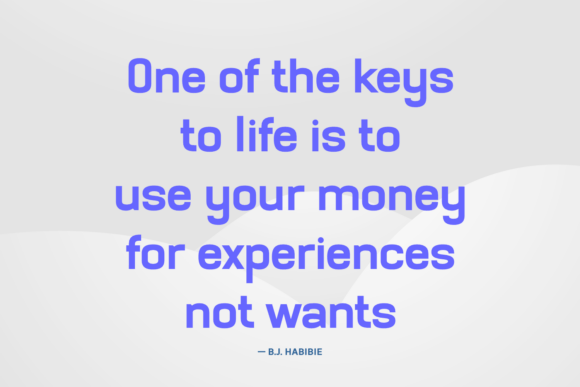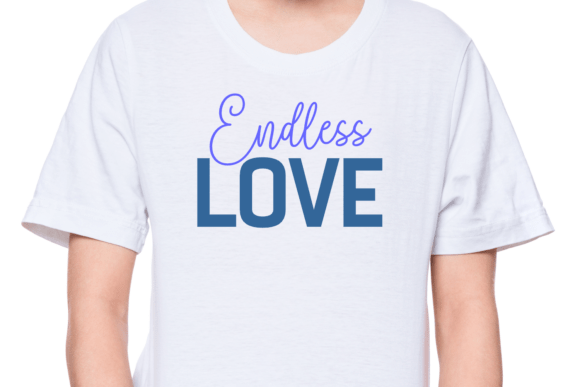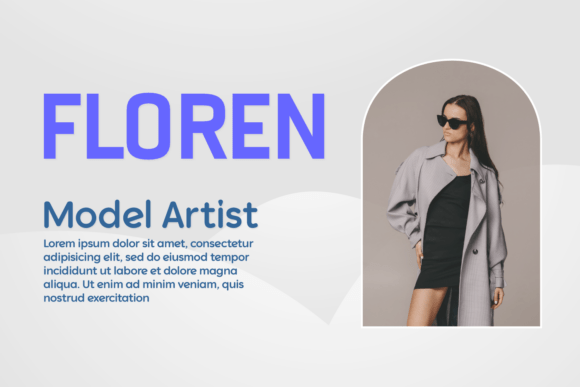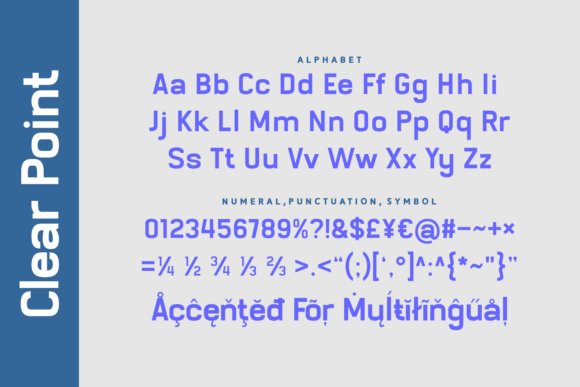
Introducing Clear Point Font: The Ultimate Choice for Modern Designers
In the world of typography, a font can make or break a design project. With the numerous options available, finding the perfect font that balances readability, aesthetics, and versatility can be a daunting task. However, if you’re looking for a bold and modern sans serif font that ticks all the right boxes, look no further than Clear Point Font.
What is Clear Point Font?
Clear Point is a thoughtfully designed sans serif font that embodies precision, clarity, and a touch of modernity. Its strong geometric structure and clean letterforms make it an excellent choice for creating impactful headlines, branding materials, posters, and digital media. Whether you’re a professional designer or a crafty DIY enthusiast, Clear Point Font is sure to elevate your design projects to the next level.
Key Features of Clear Point Font
- Bold and Modern Design: Clear Point Font boasts a bold and modern sans serif design that exudes confidence and sophistication.
- Geometric Structure: The font’s strong geometric structure provides a sense of stability and precision, making it perfect for designs that require a professional edge.
- Clean Letterforms: The clean and minimalist letterforms of Clear Point Font ensure that your message is conveyed with clarity and precision.
- Versatility: Clear Point Font balances readability with a contemporary edge, making it suitable for a wide range of design projects, from professional branding to creative posters and digital media.
Use Cases for Clear Point Font
Clear Point Font is an incredibly versatile font that can be used in various design projects, including:
- Impactful Headlines: The bold and modern design of Clear Point Font makes it perfect for creating attention-grabbing headlines that demand attention.
- Branding and Logo Design: The font’s strong geometric structure and clean letterforms make it an excellent choice for creating professional and memorable brand identities.
- Posters and Flyers: Clear Point Font is ideal for creating visually striking posters and flyers that require a bold and modern aesthetic.
- Digital Media: The font’s clean and legible design makes it suitable for use in digital media, such as website headers, social media graphics, and more.
Why Choose Clear Point Font?
With so many fonts available, why should you choose Clear Point Font for your design projects? Here are just a few reasons:
- Readability: Clear Point Font is designed with readability in mind, ensuring that your message is conveyed clearly and effectively.
- Uniqueness: The font’s bold and modern design sets it apart from more traditional fonts, giving your design projects a unique and contemporary edge.
- Versatility: Clear Point Font can be used in a wide range of design projects, making it a valuable addition to any designer’s font library.